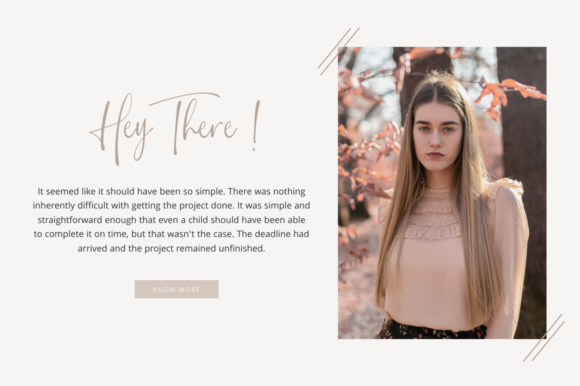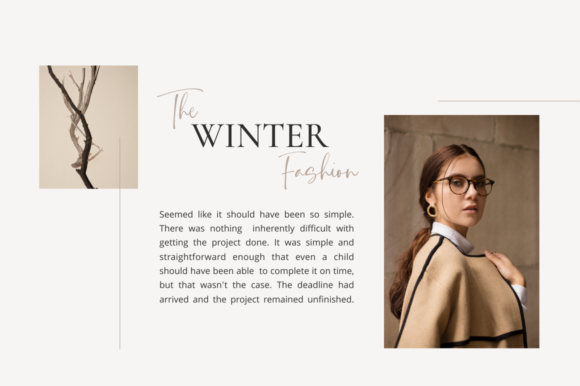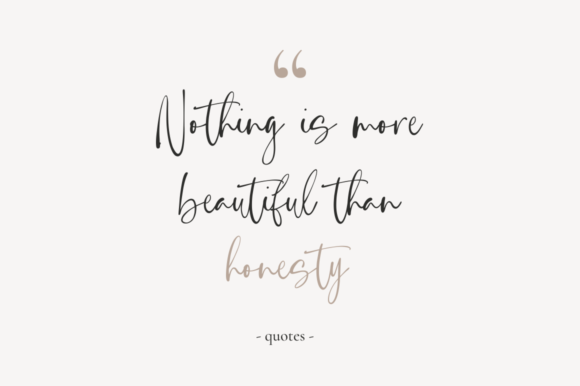
Introduction to Rustling Sound Font
Rustling Sound is a stylish and incredibly elegant handwritten font.
It looks stunning on wedding invitations, thank you cards, quotes, greeting cards, logos, business cards and every other design which needs a handwritten touch This font is PUA encoded which means you can access all of the glyphs and swashes with ease.
Key Features of Rustling Sound Font
Why Choose Rustling Sound Font?
Rustling Sound Font offers exceptional quality and versatility, making it a valuable addition to your design toolkit. Whether you’re creating for personal projects or commercial use, Rustling Sound Font delivers professional results.